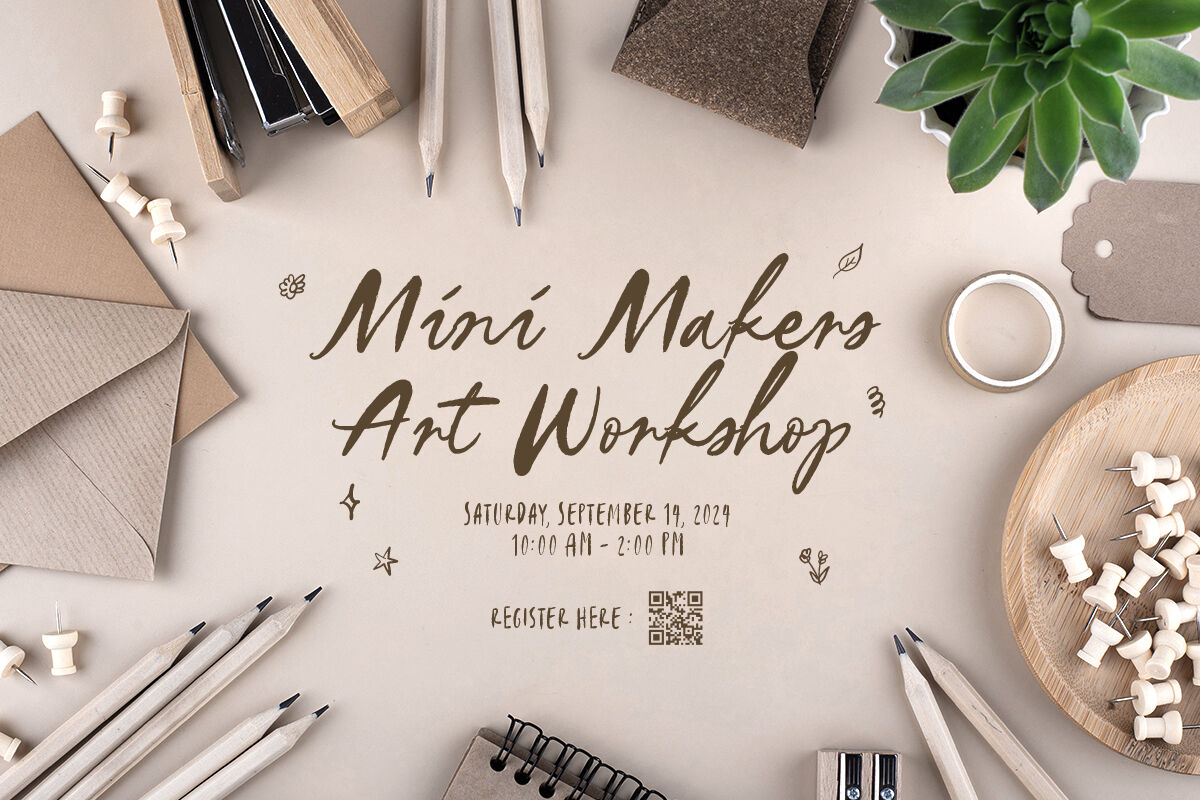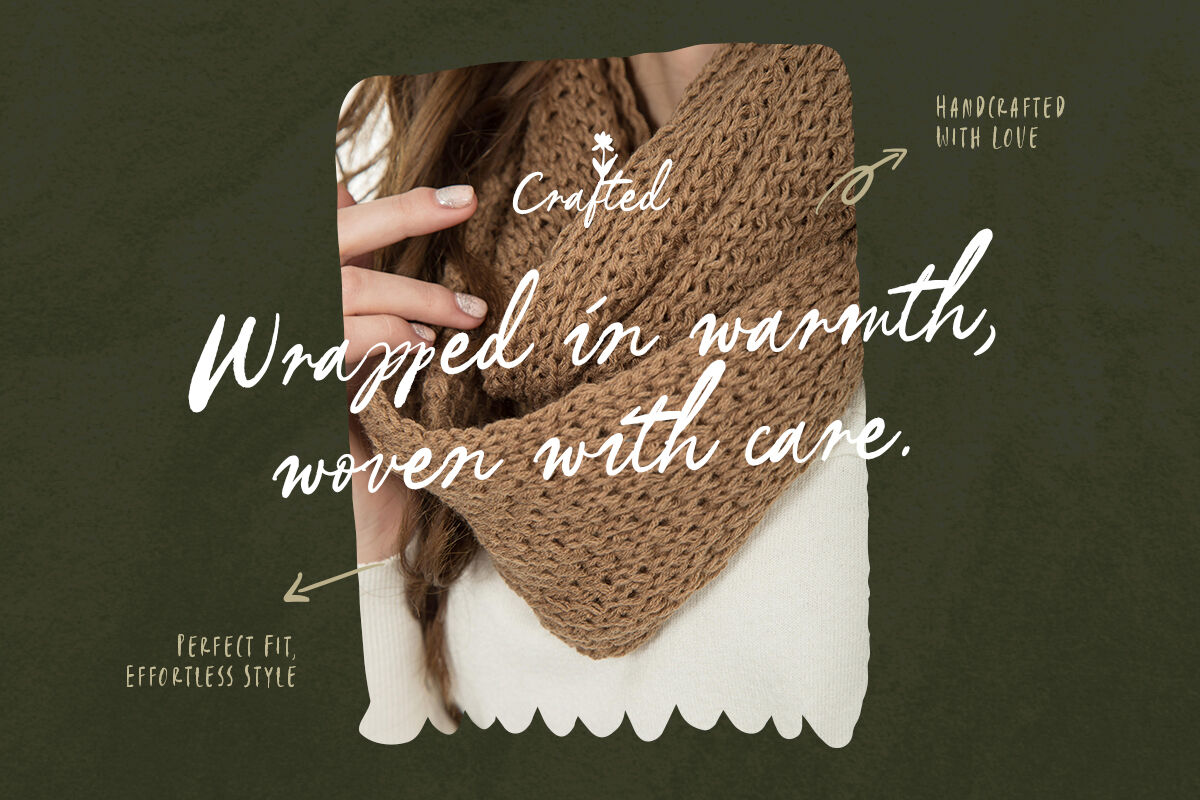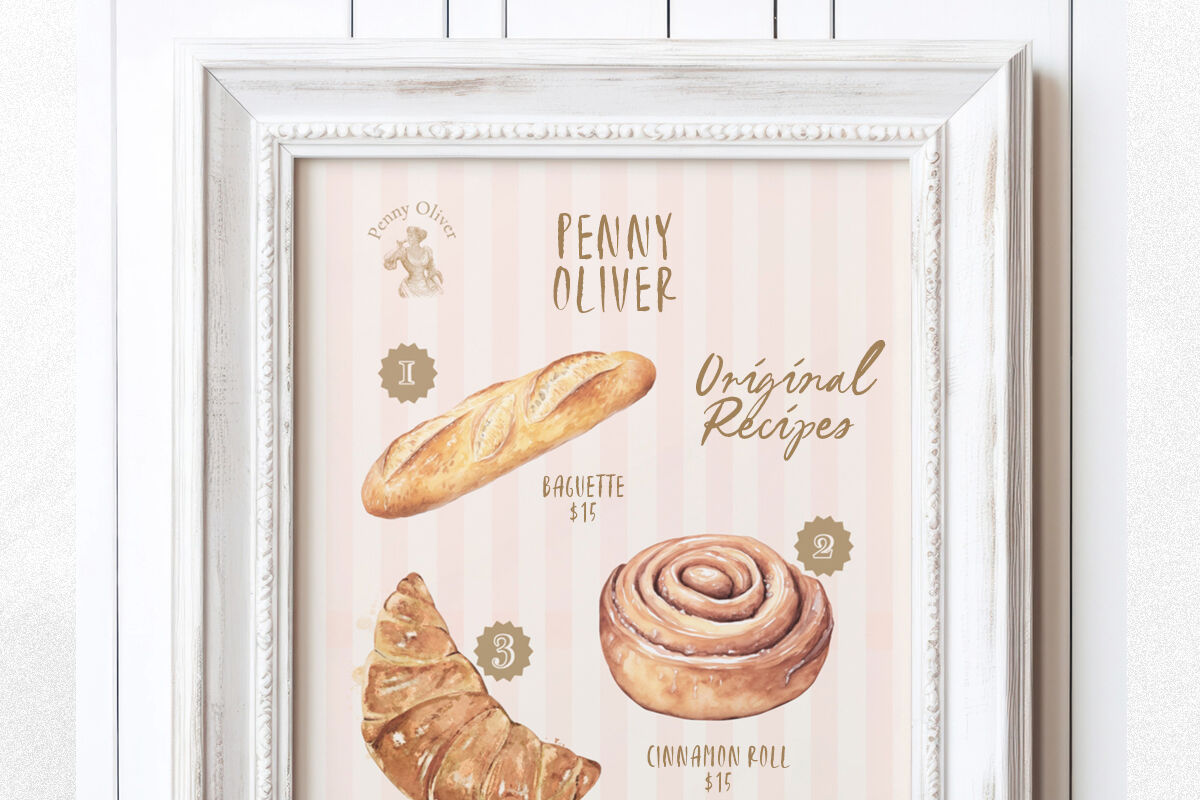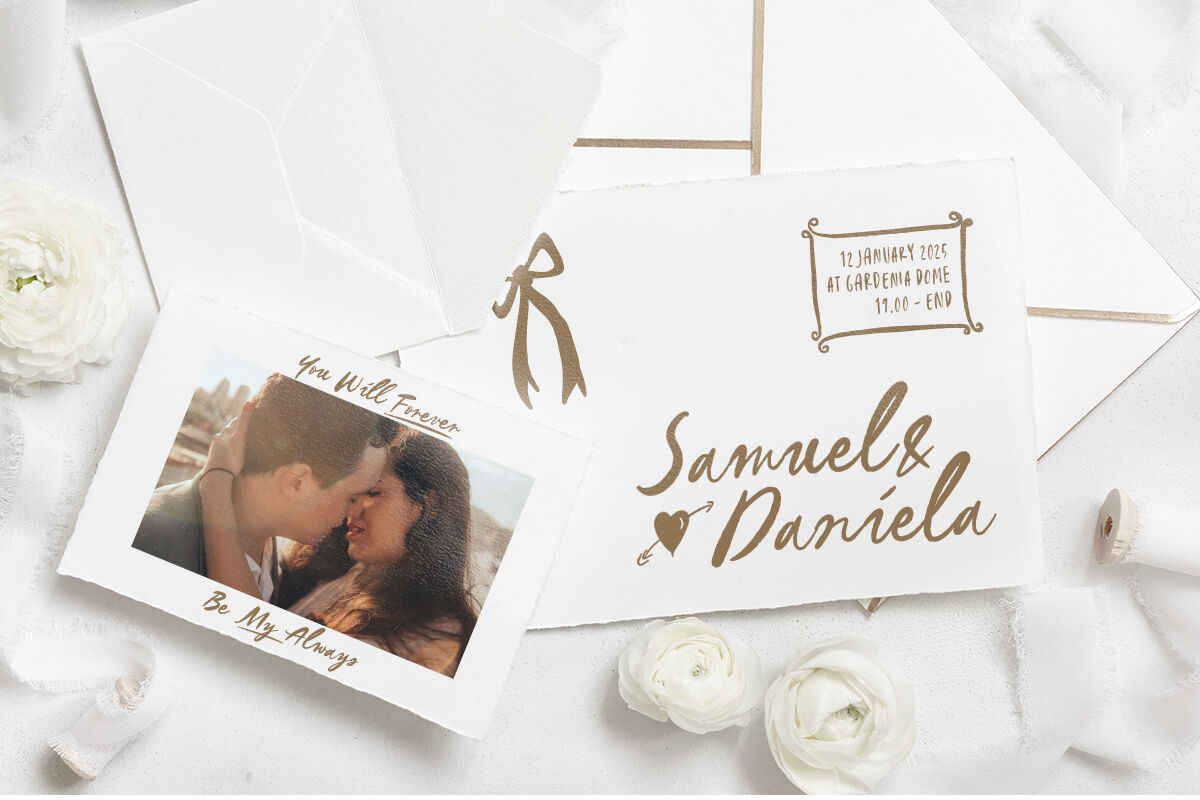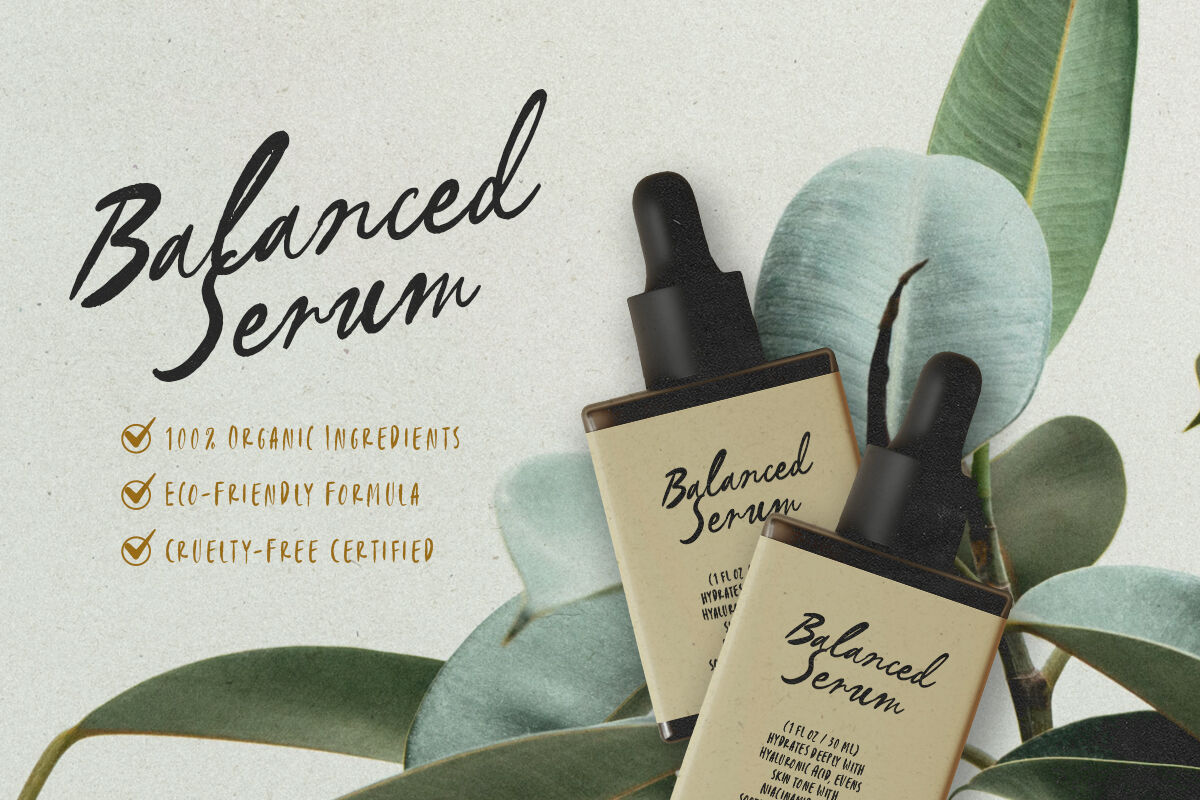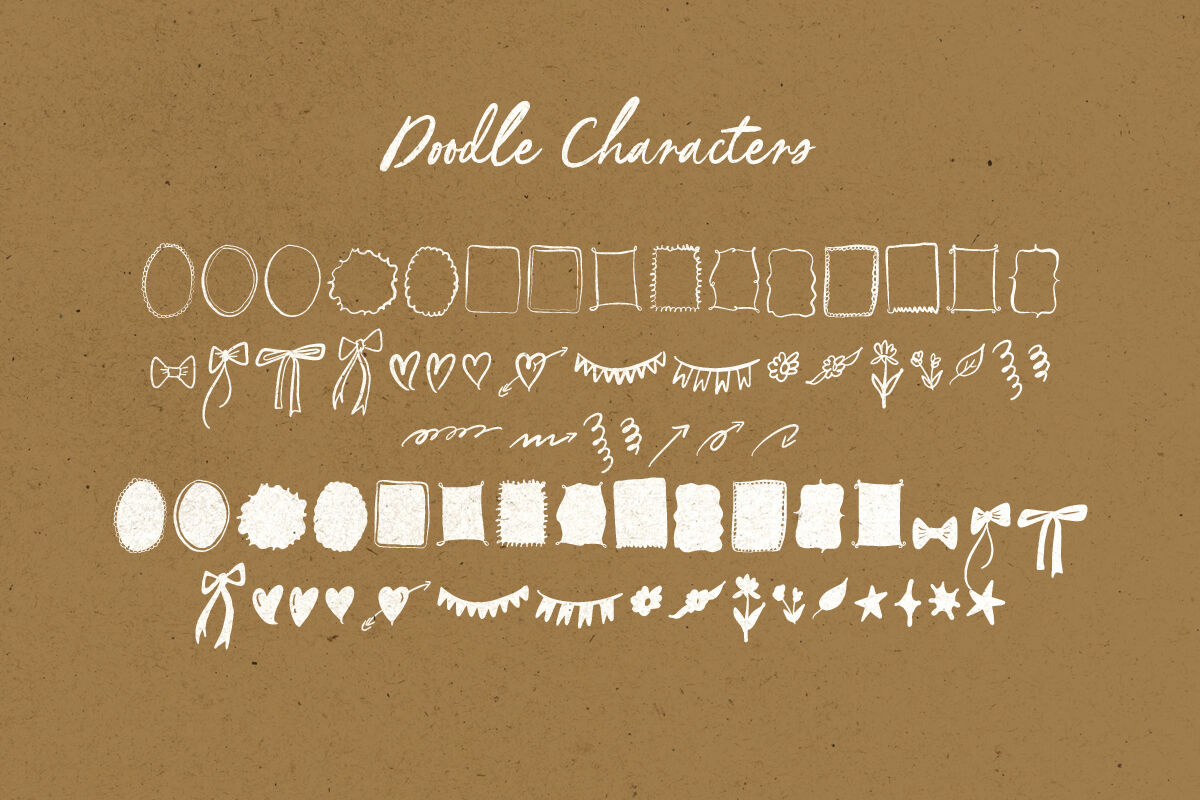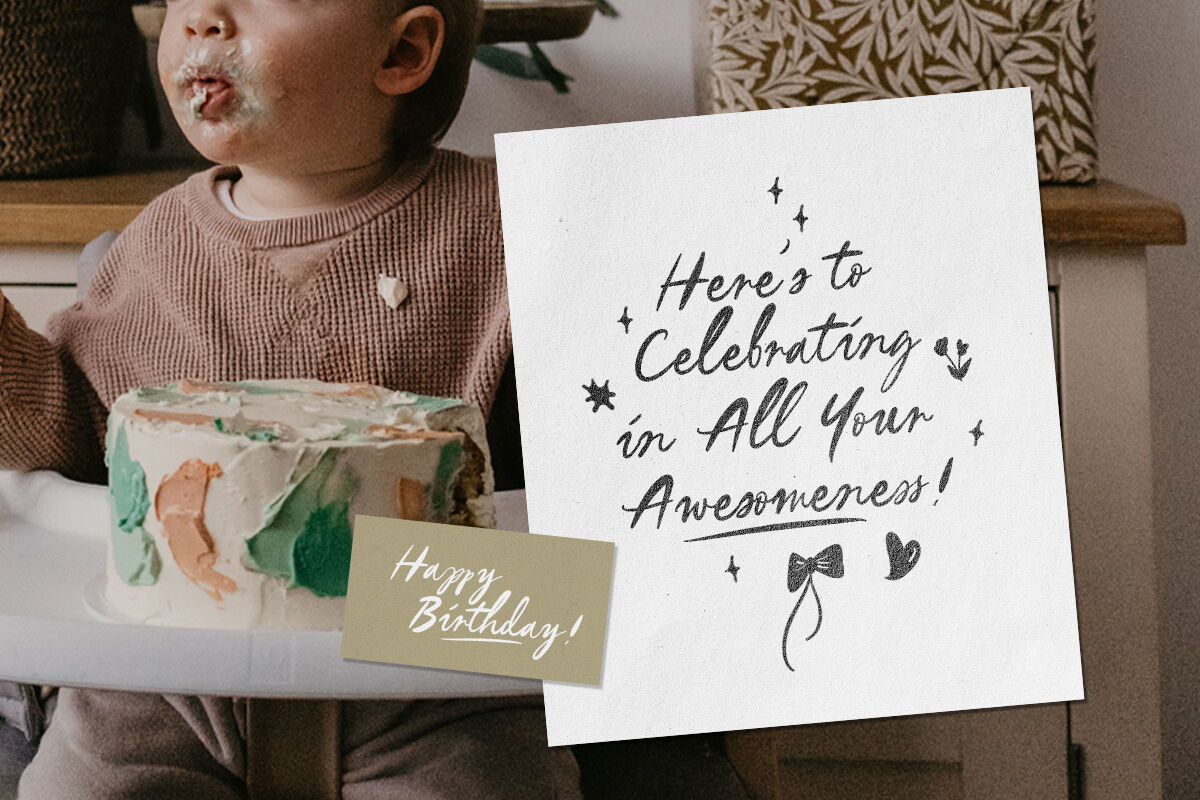
Mersilla - Font Collections + Doodle
Mersilla is a handmade font collections. Contain 3 fonts including script, sans, and doodle font. You can use this font for any purposes. Suitable for branding logo, hand writing, quotes, or apparel design. the doodle font contains hand-drawn object, star, bow, flowers, and frames. This font collections also support multilingual, number and symbol.
Mersilla Doodle
Mersilla Sans
Mersilla Script